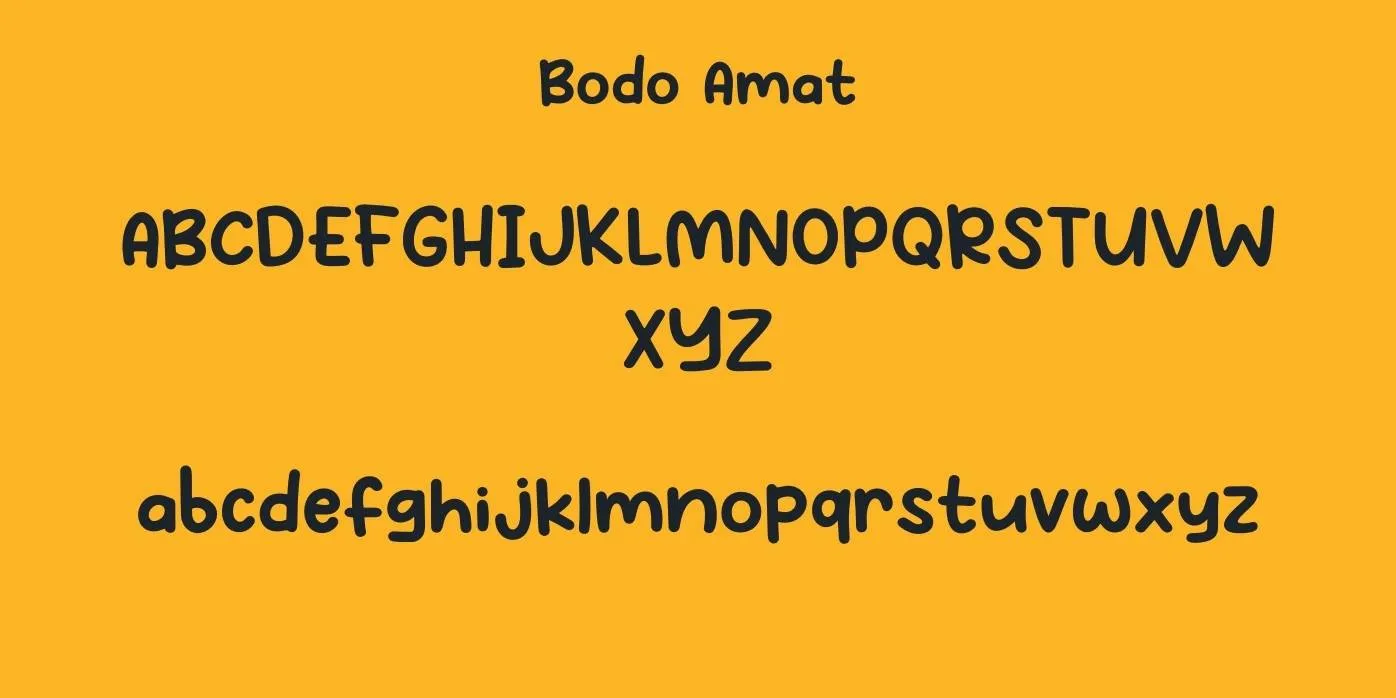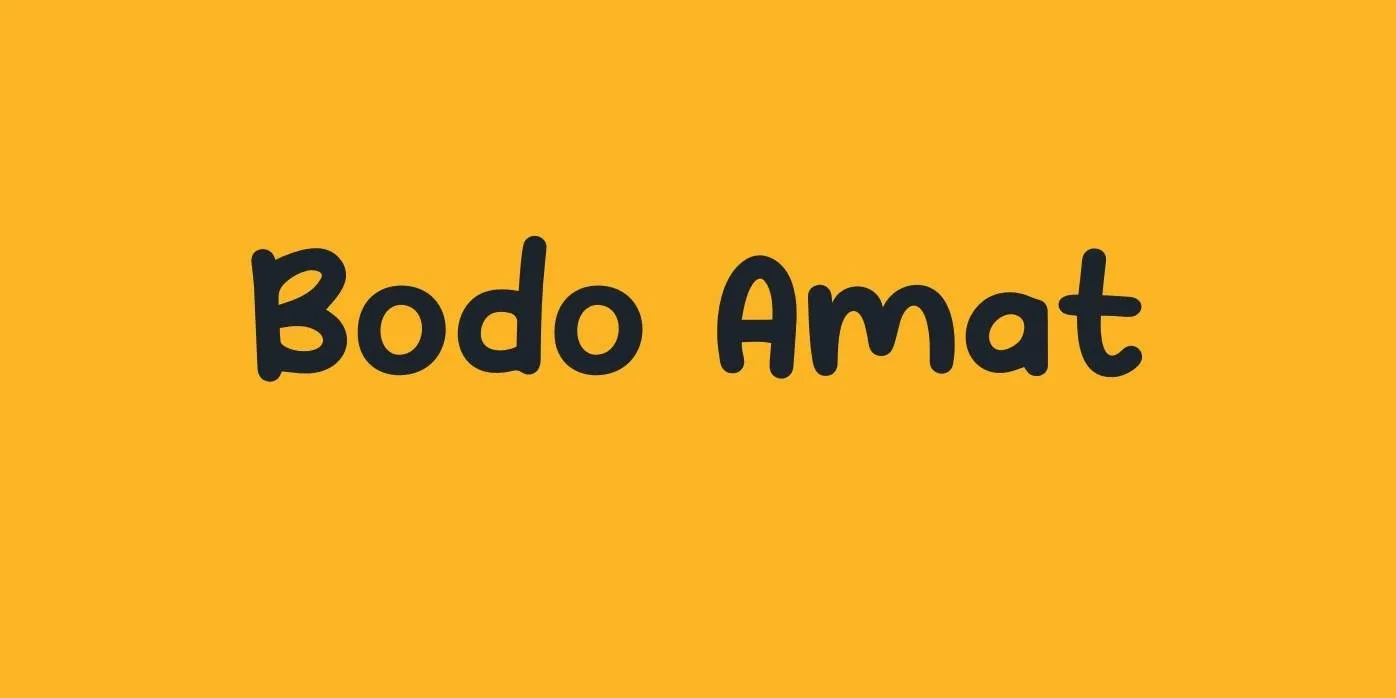
Bodo Amat Font
Khurasan designed the Bodo Amat Font that was belongs to a cartoon family. The characters of the typeface are classic, simple, and clean. The font can be used for multiple purposes. This font characters are highly readable because of its boldness.
So, you can use this pair for a better result. The font family includes only one style, this shows that the family has no extension.